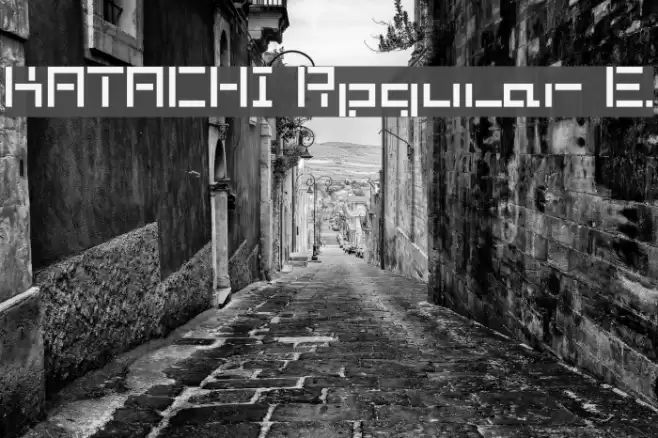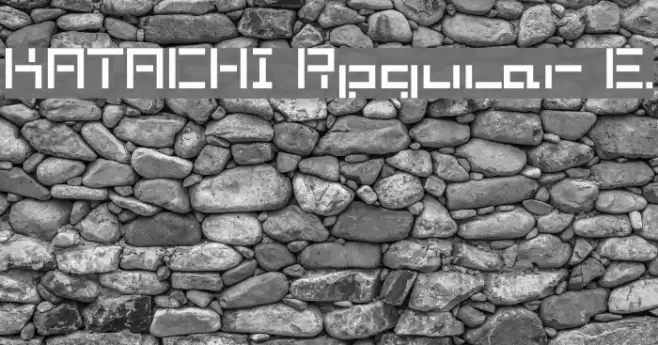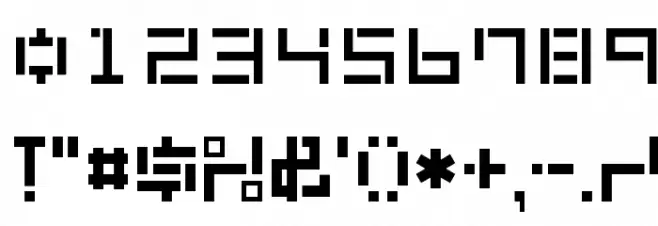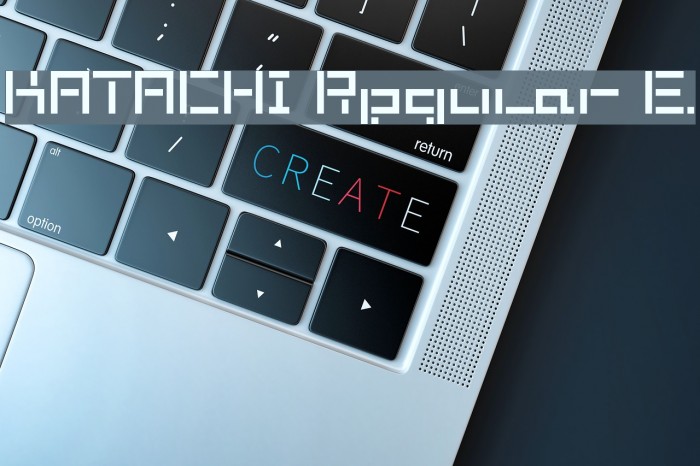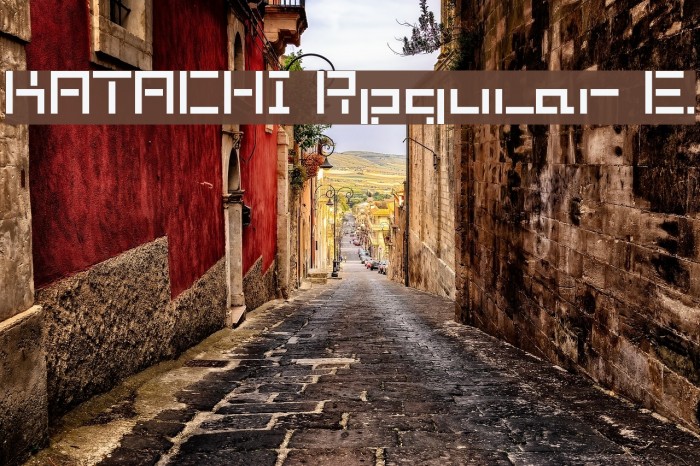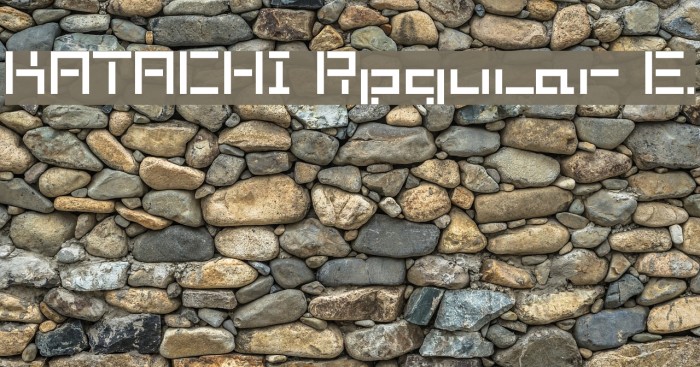
KATACHI Regular E. Font
KATACHI Regular E. Description
This font features a geometric and modular design, characterized by its blocky and pixelated appearance. Each character is constructed with a series of straight lines and right angles, giving it a digital and futuristic feel. The uppercase and lowercase letters maintain a consistent height, while the numbers and special characters follow the same structured pattern. This font's unique style is reminiscent of early computer graphics and digital displays, making it ideal for projects that require a modern and tech-inspired aesthetic.
A geometric, pixelated font with a digital, futuristic style from Uncategorized fonts.
- Proposed Projects: Ideal for video game graphics, tech branding, digital art, and futuristic-themed posters.
- Use Case: Logos, Headlines, Digital displays